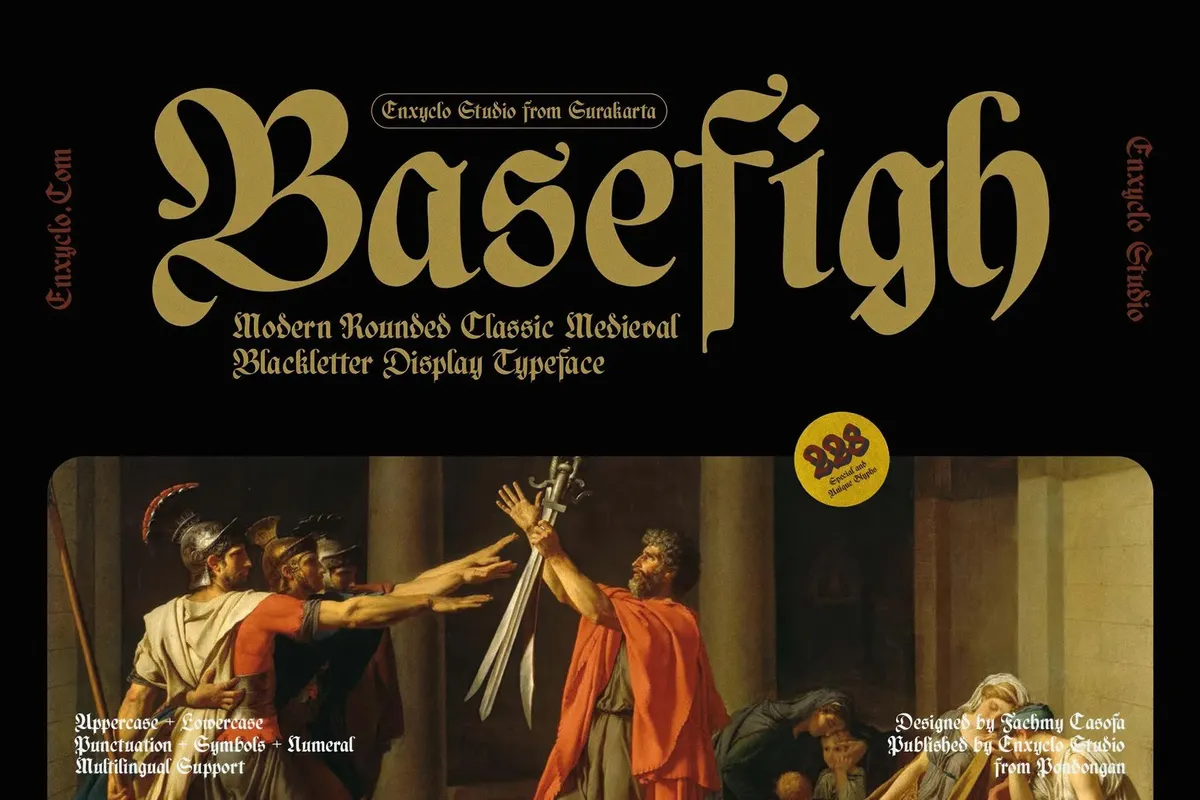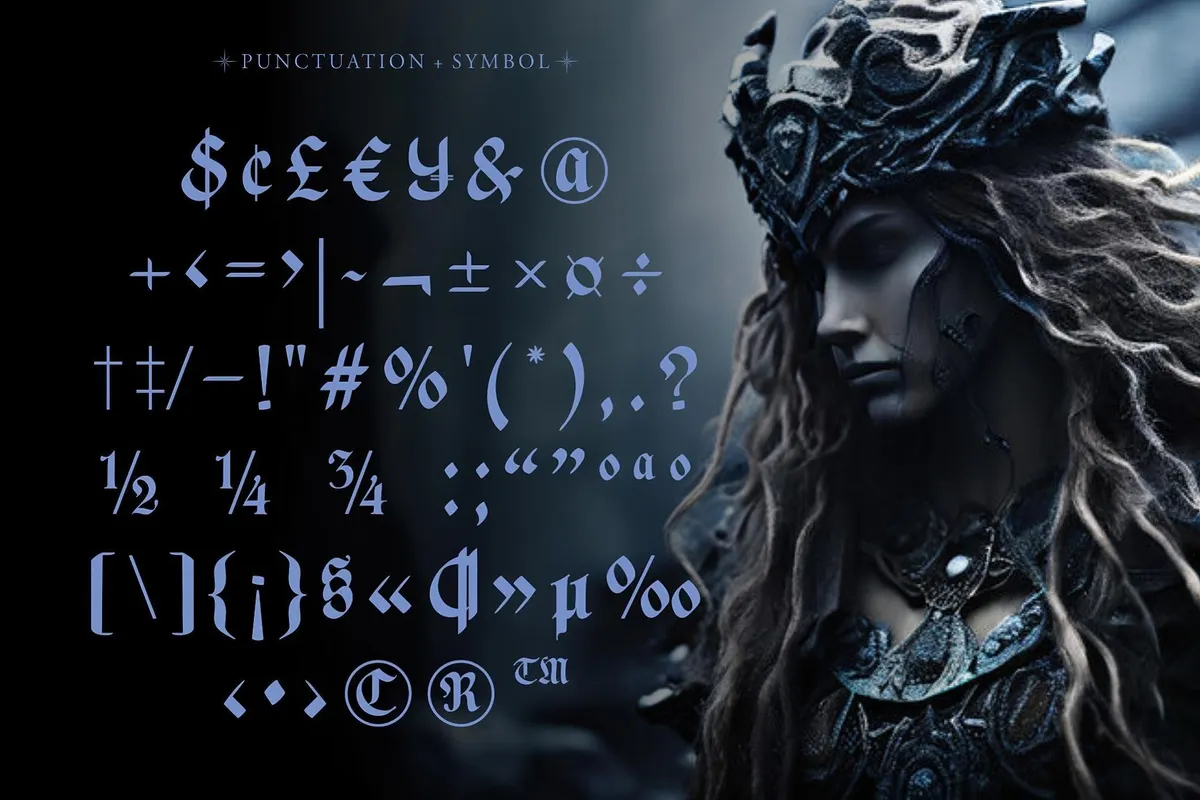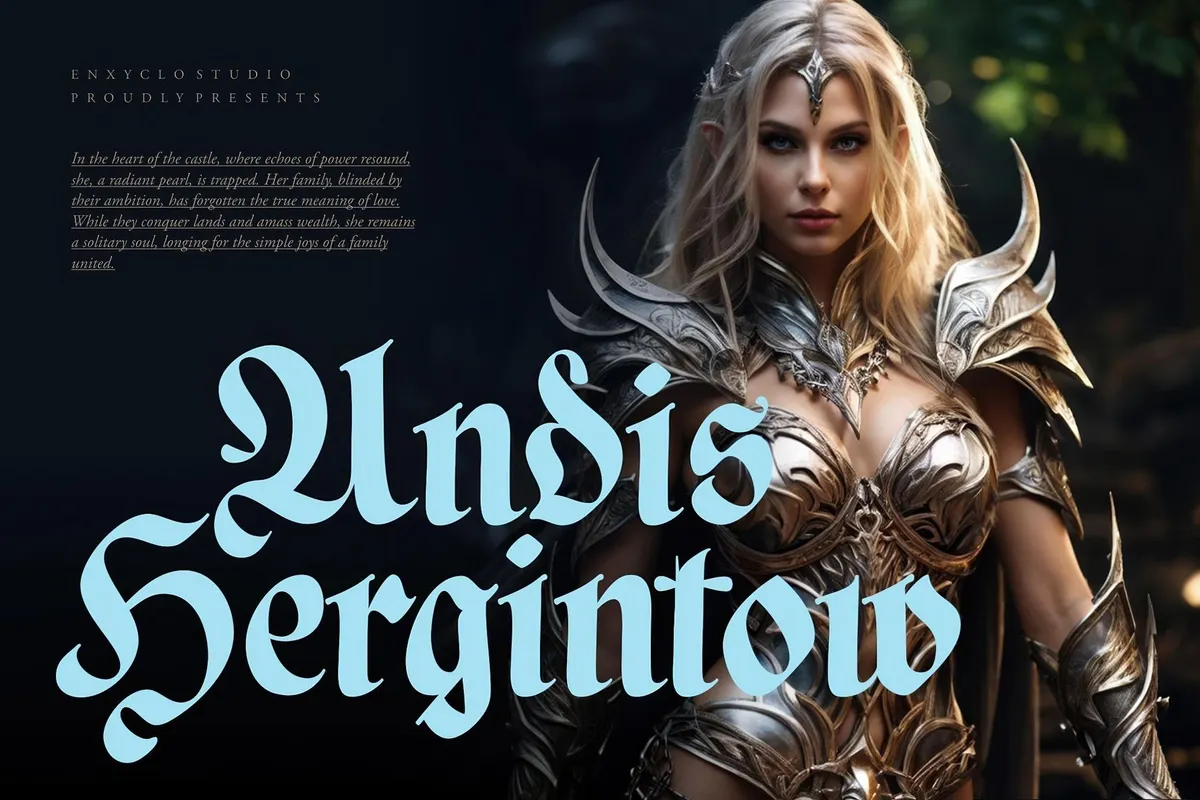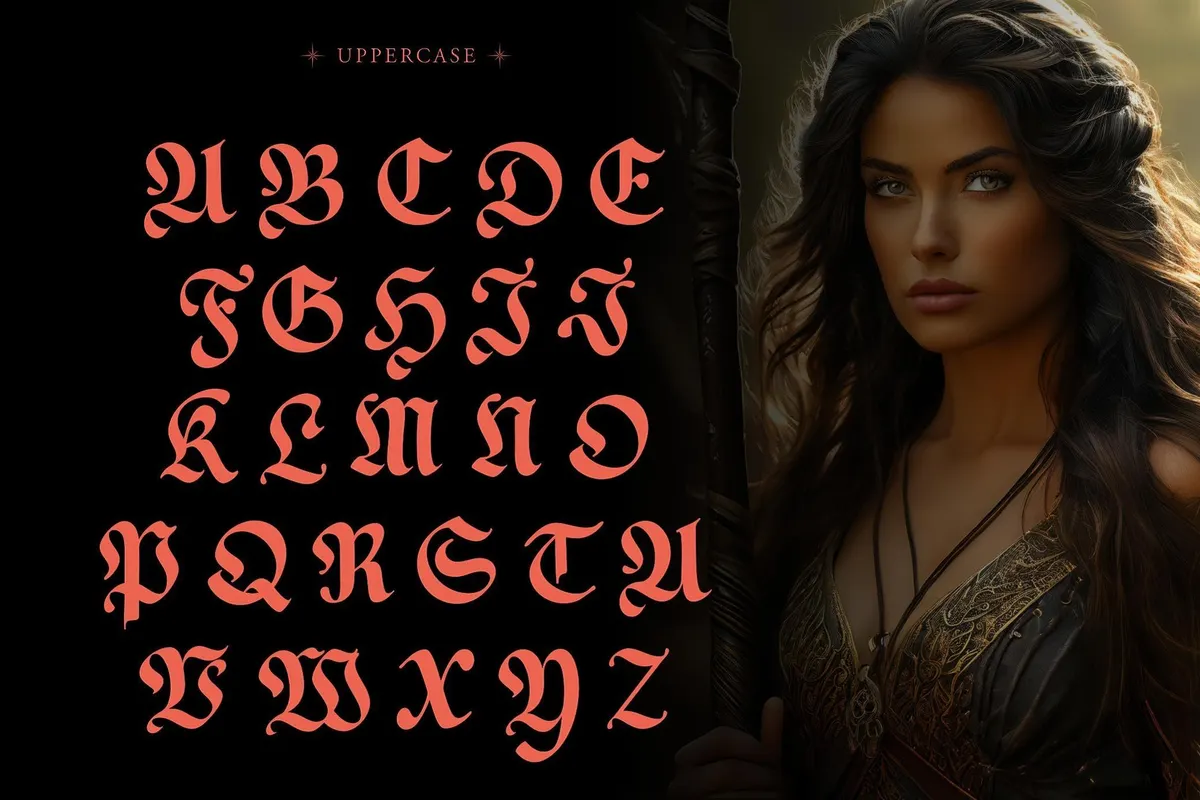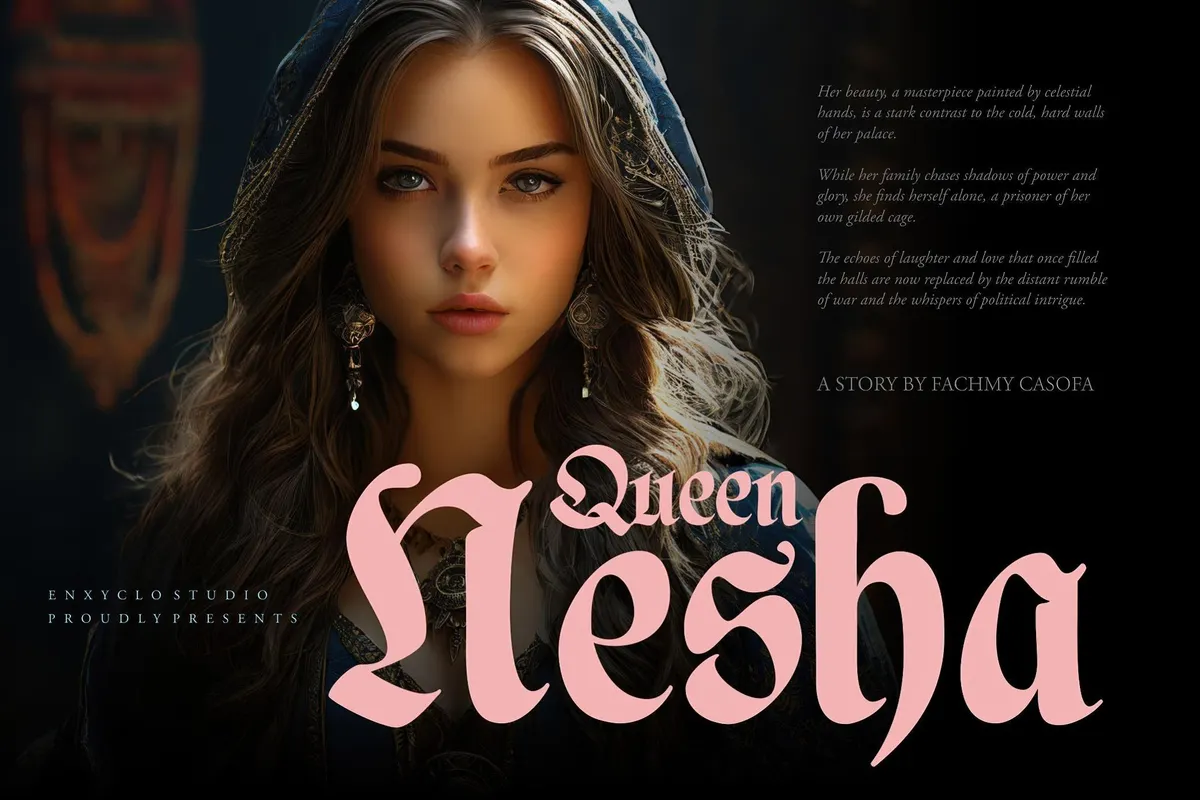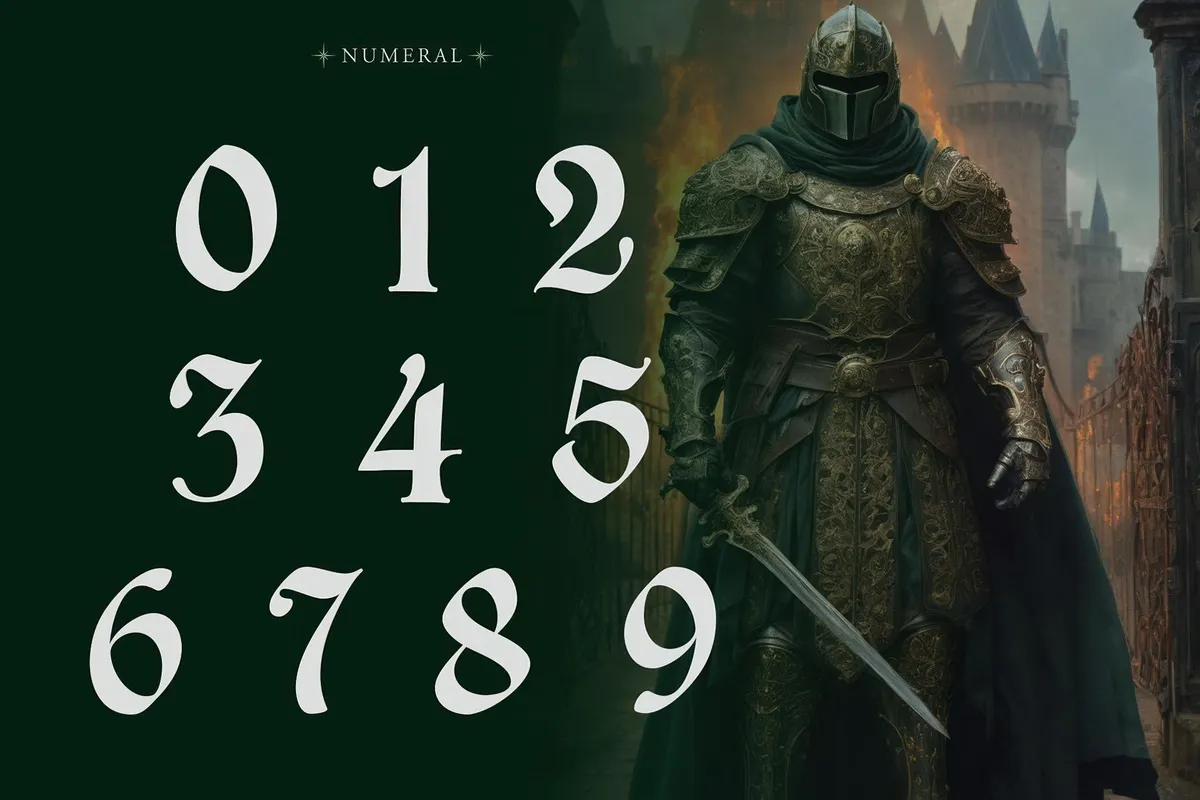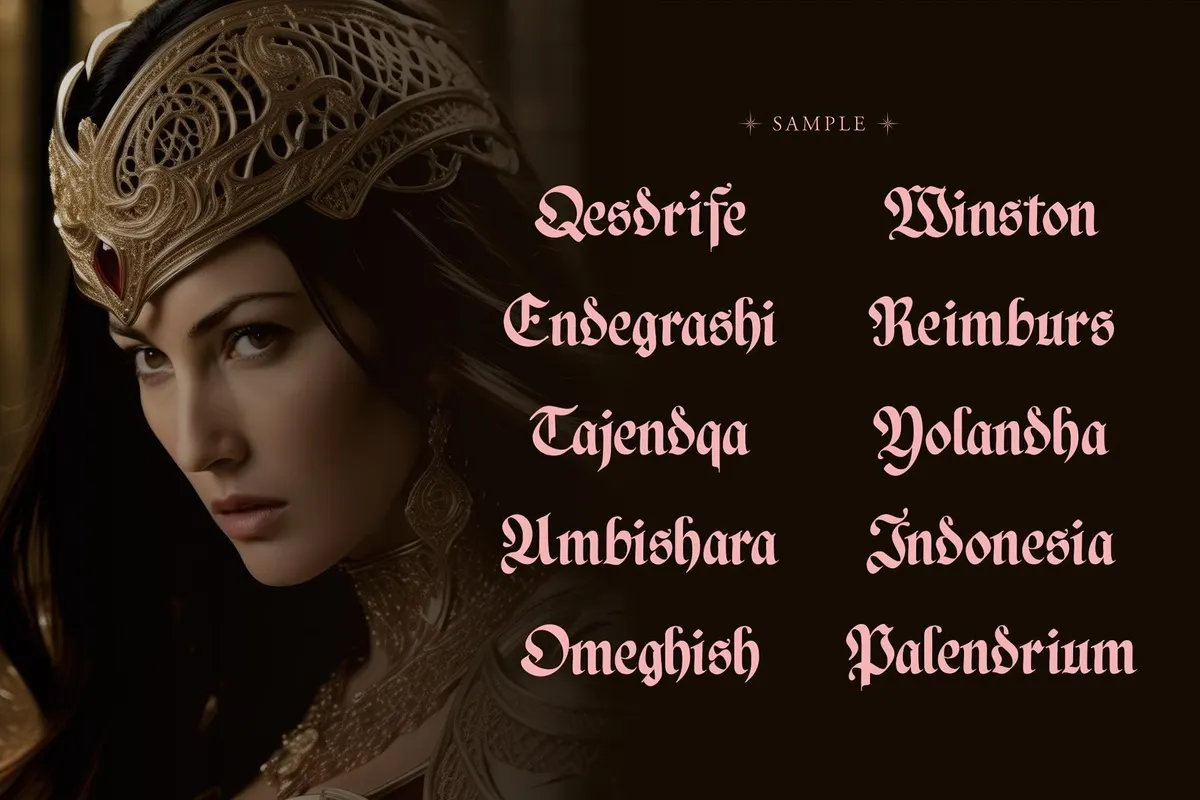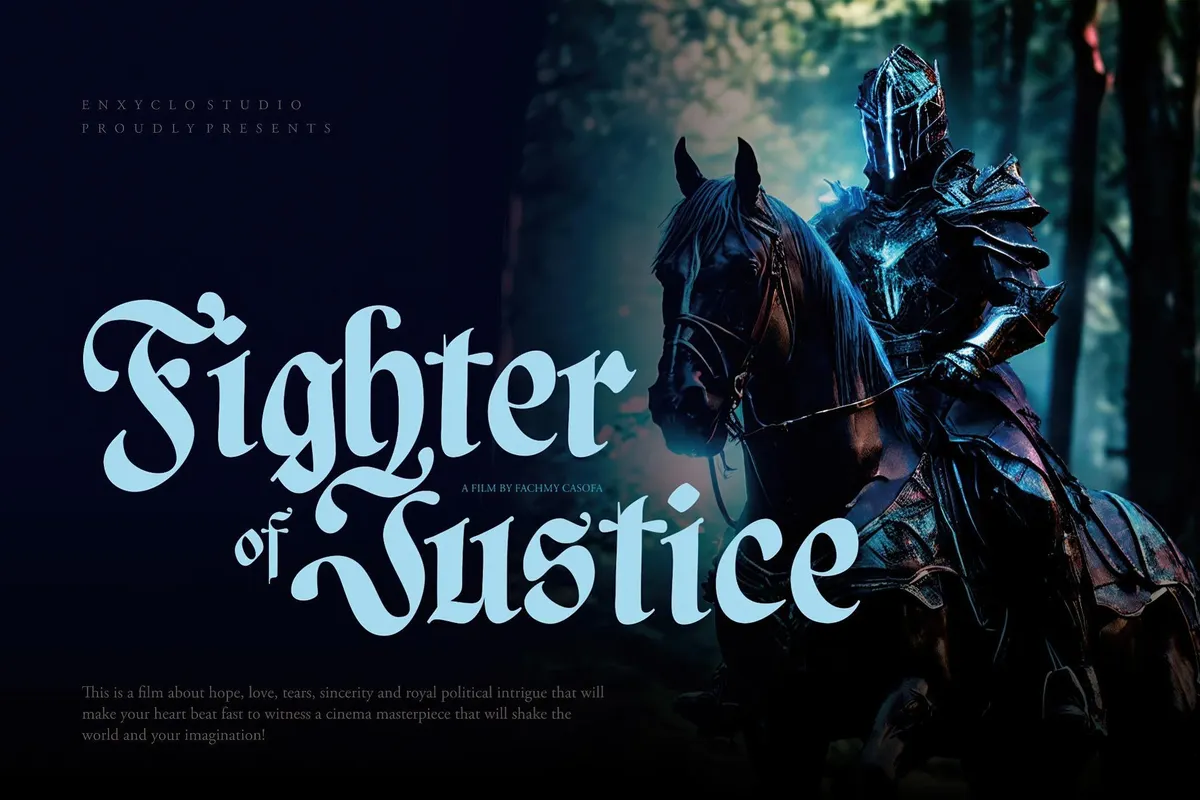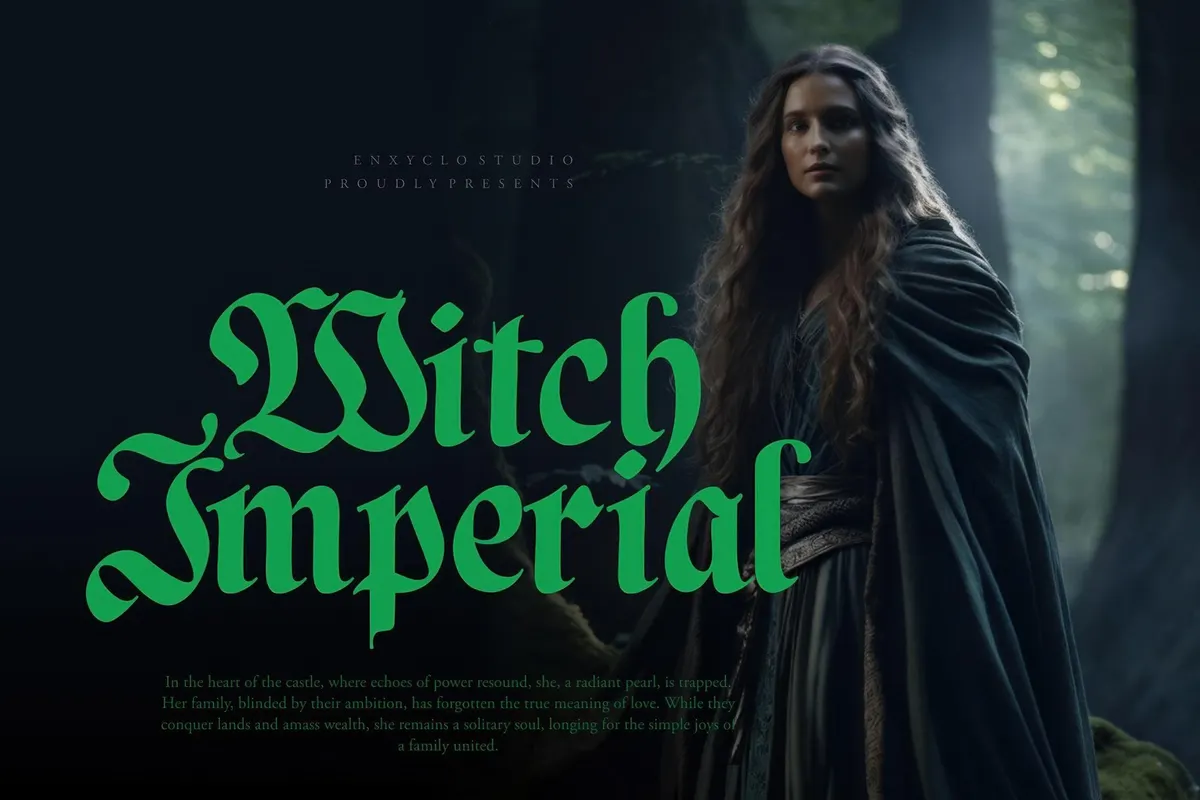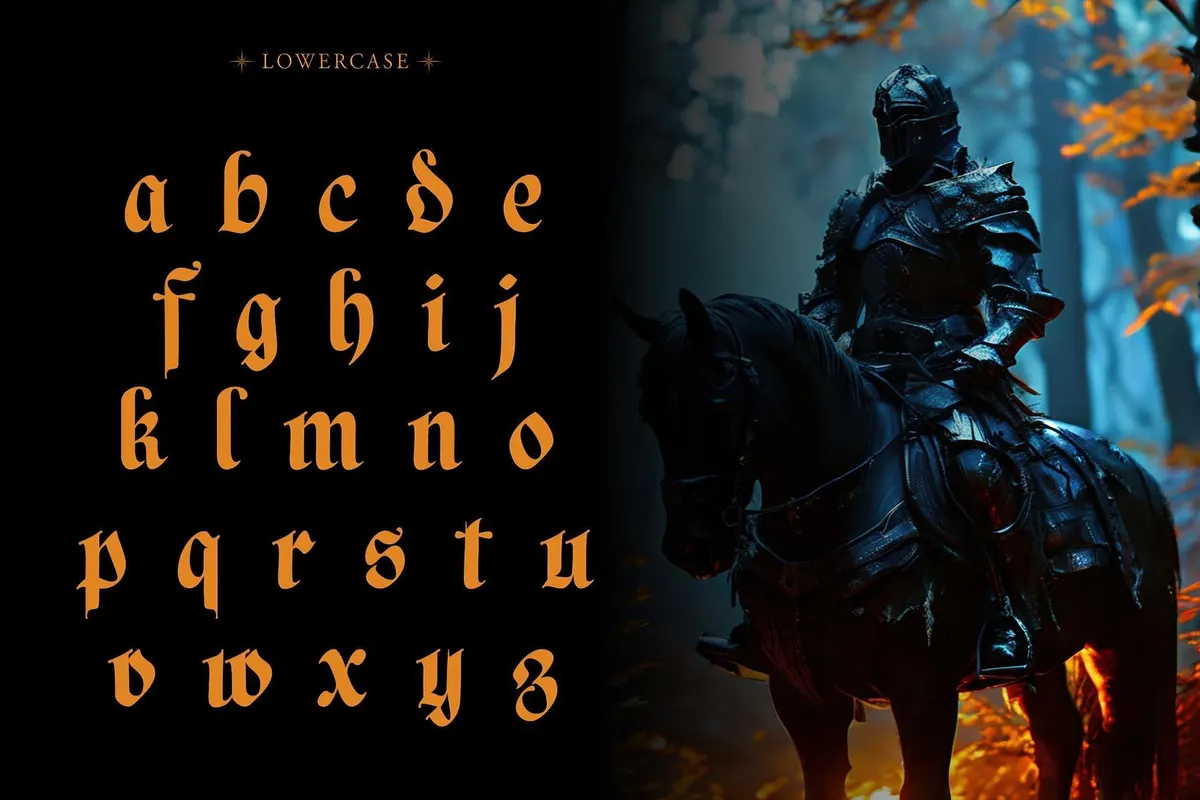
NCL Basefigh — Rounded Blackletter Font
NCL Basefigh is a rounded blackletter font. It meets Old English lettering of the medieval manuscripts with Ottoman/Arabic script. Such typographic duality becomes a creator's trump when it comes to unconventional solutions for editorial & book design, formal invitations, posters, apparel, branding, movie titles, and even religious contexts. The font features 228 glyphs: uppercase, lowercase, numerals, punctuation, symbols, and multilingual support for Latin-based languages.